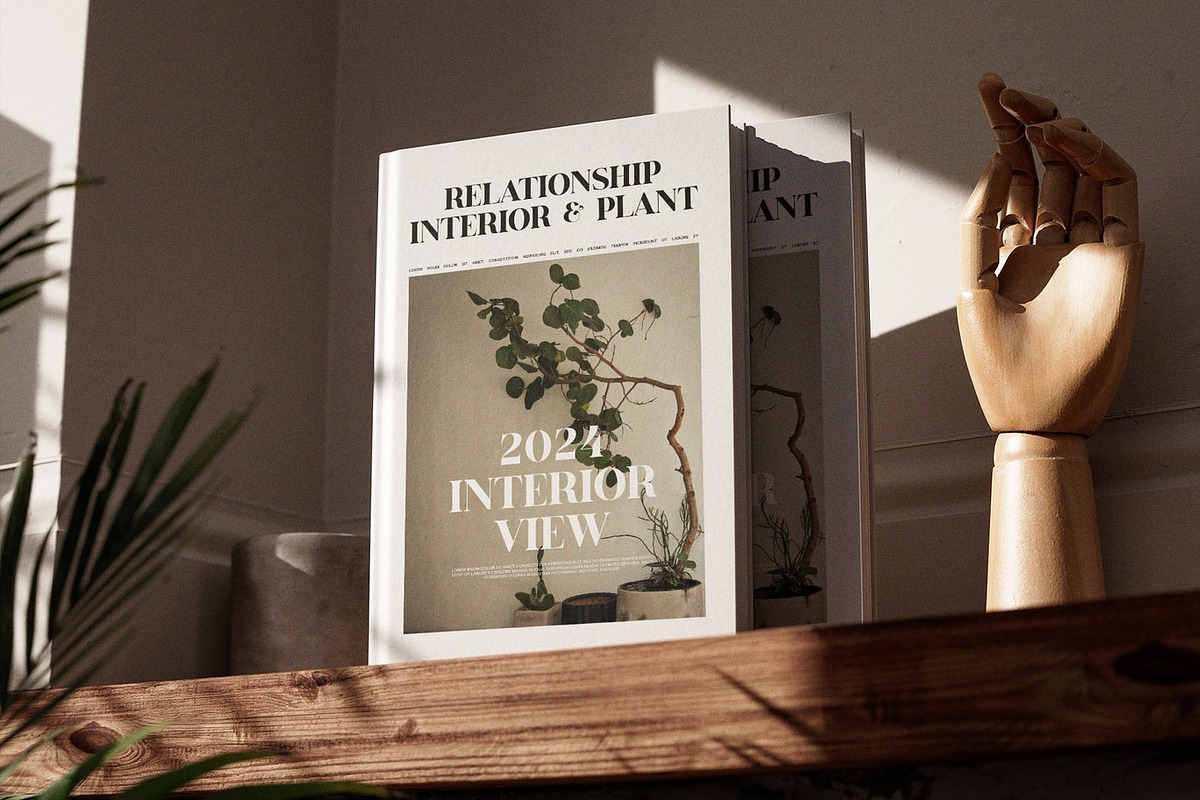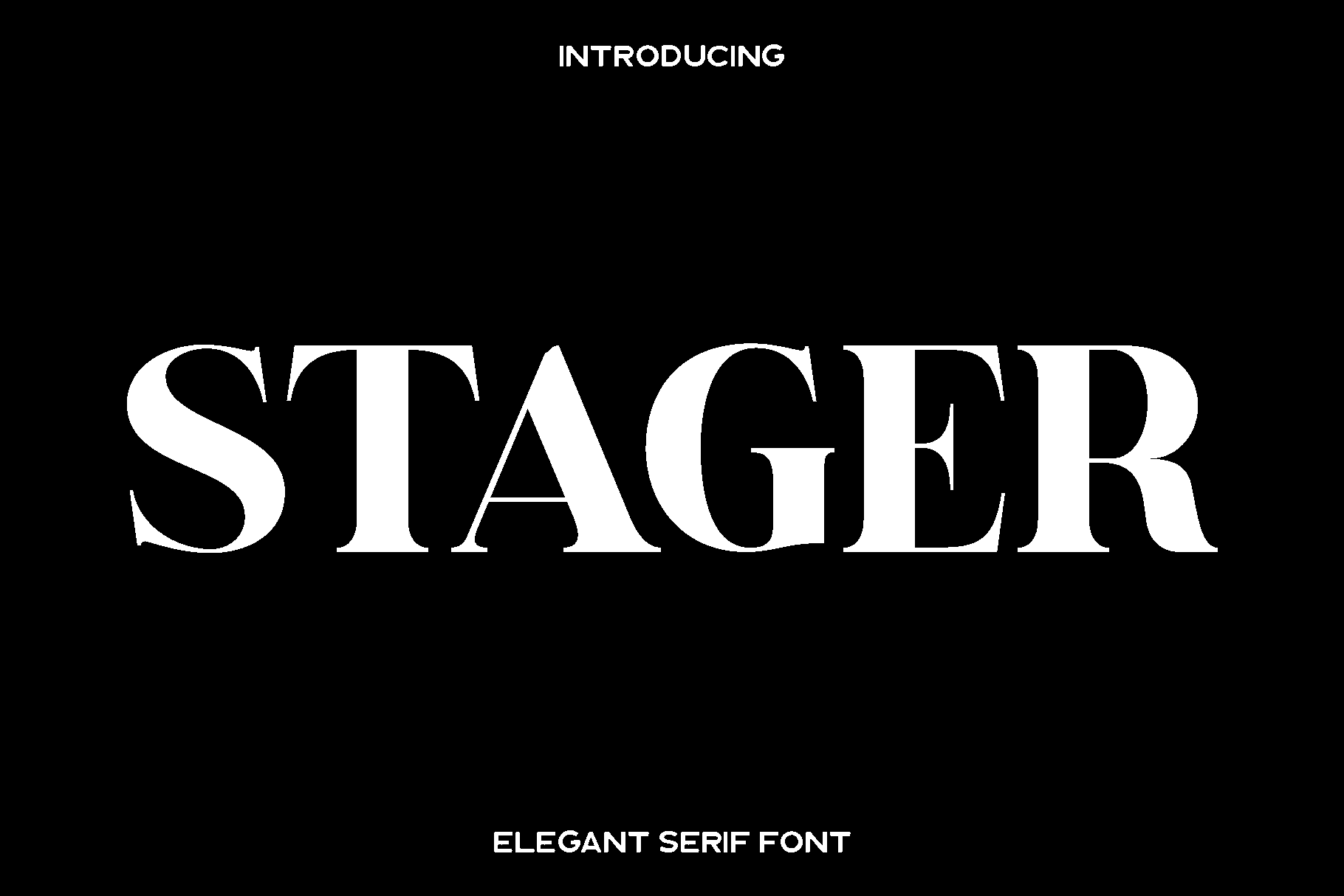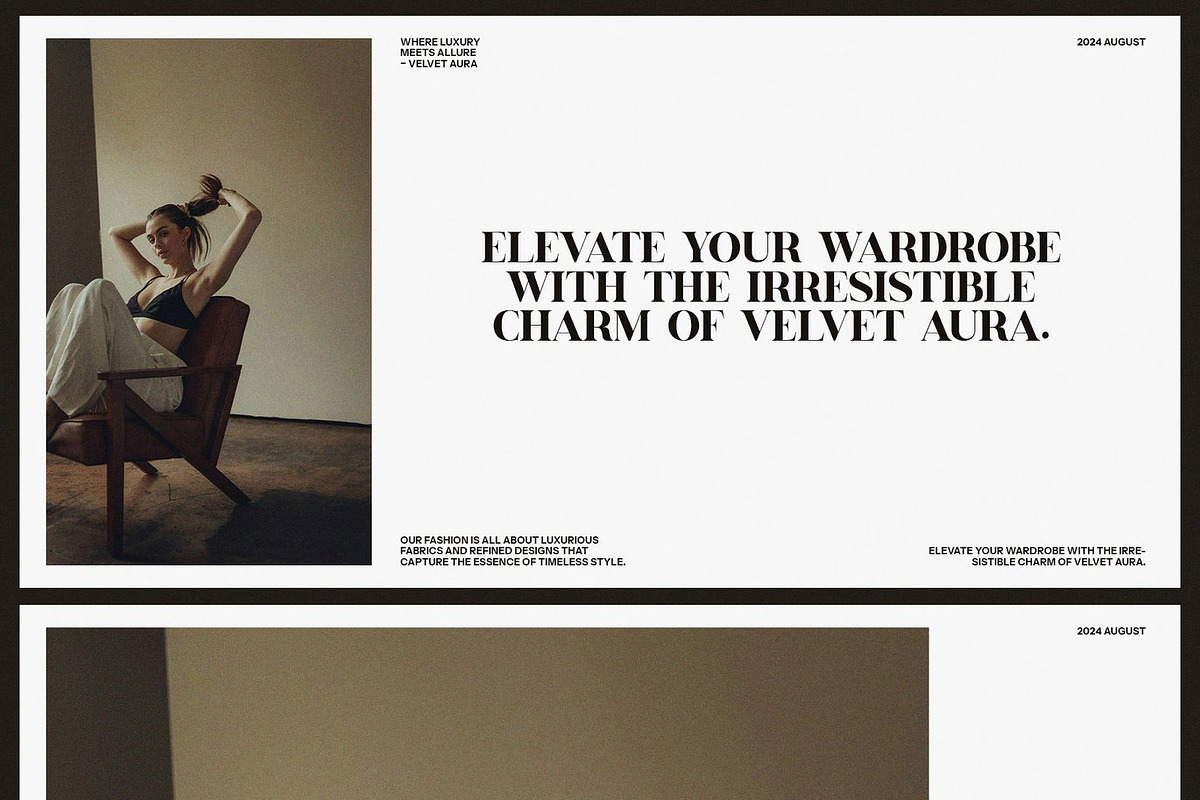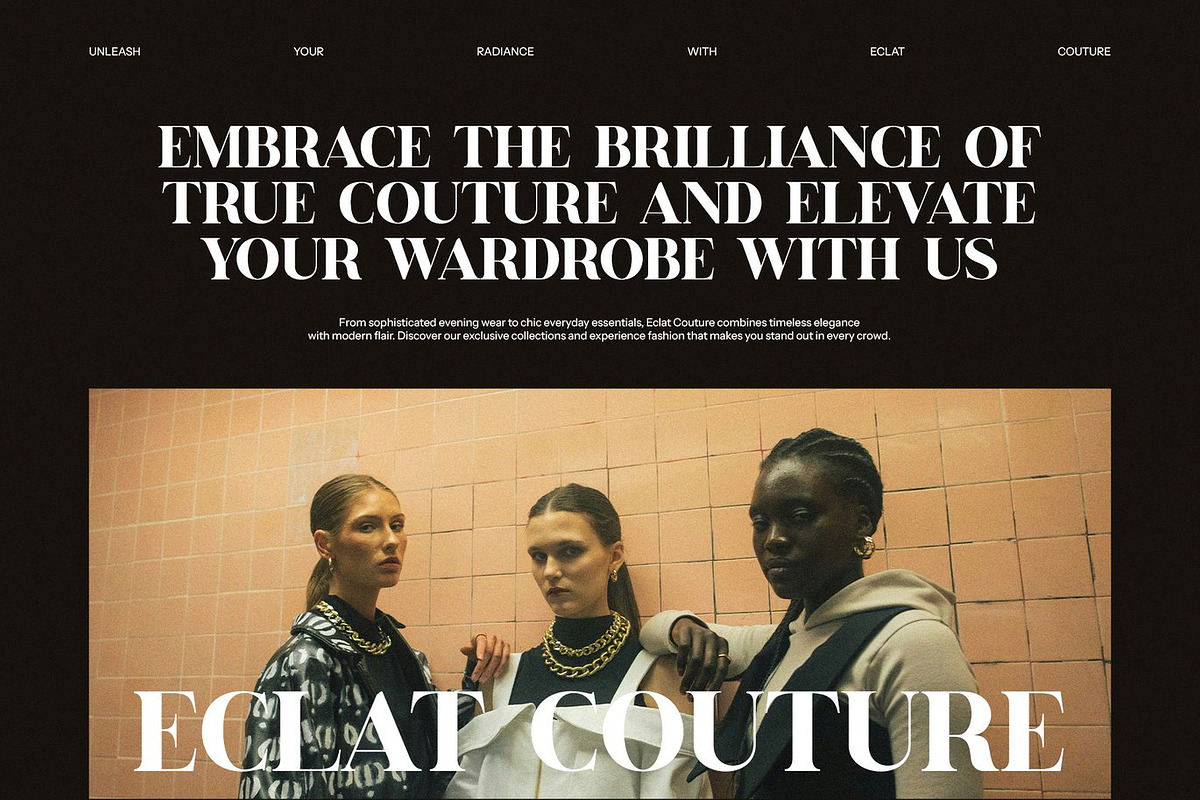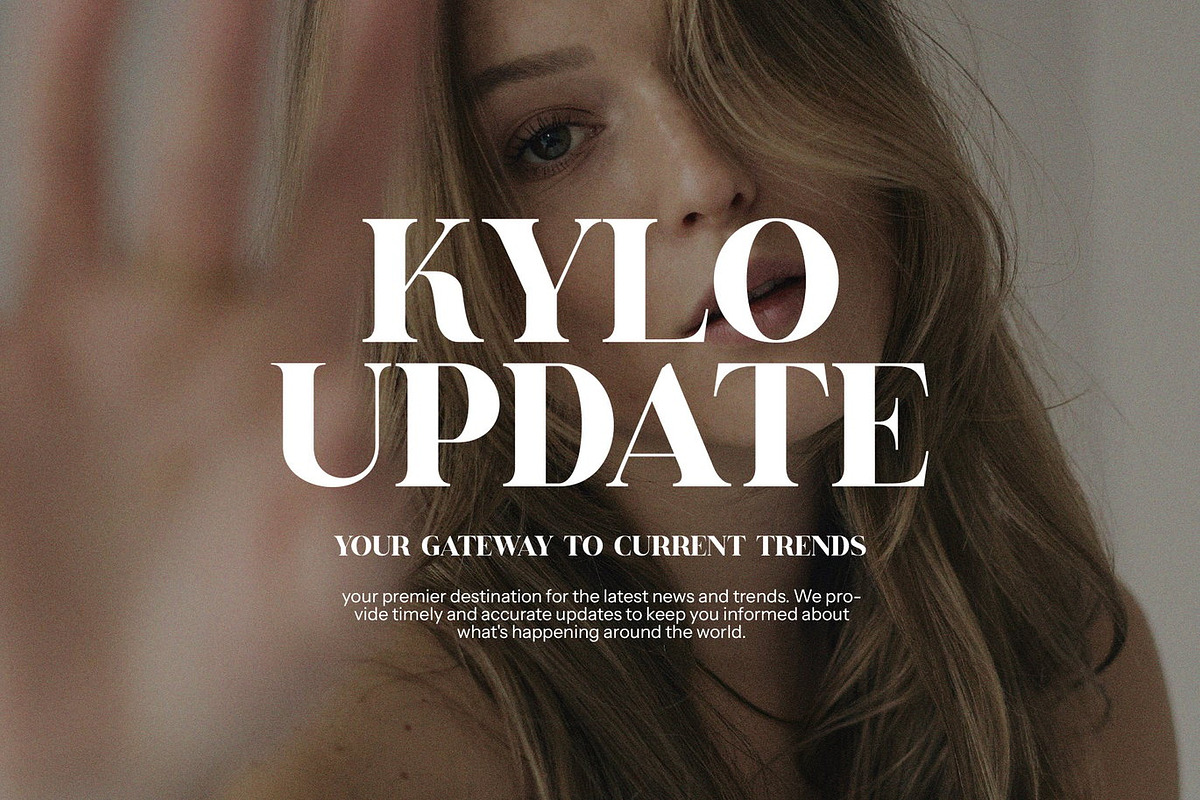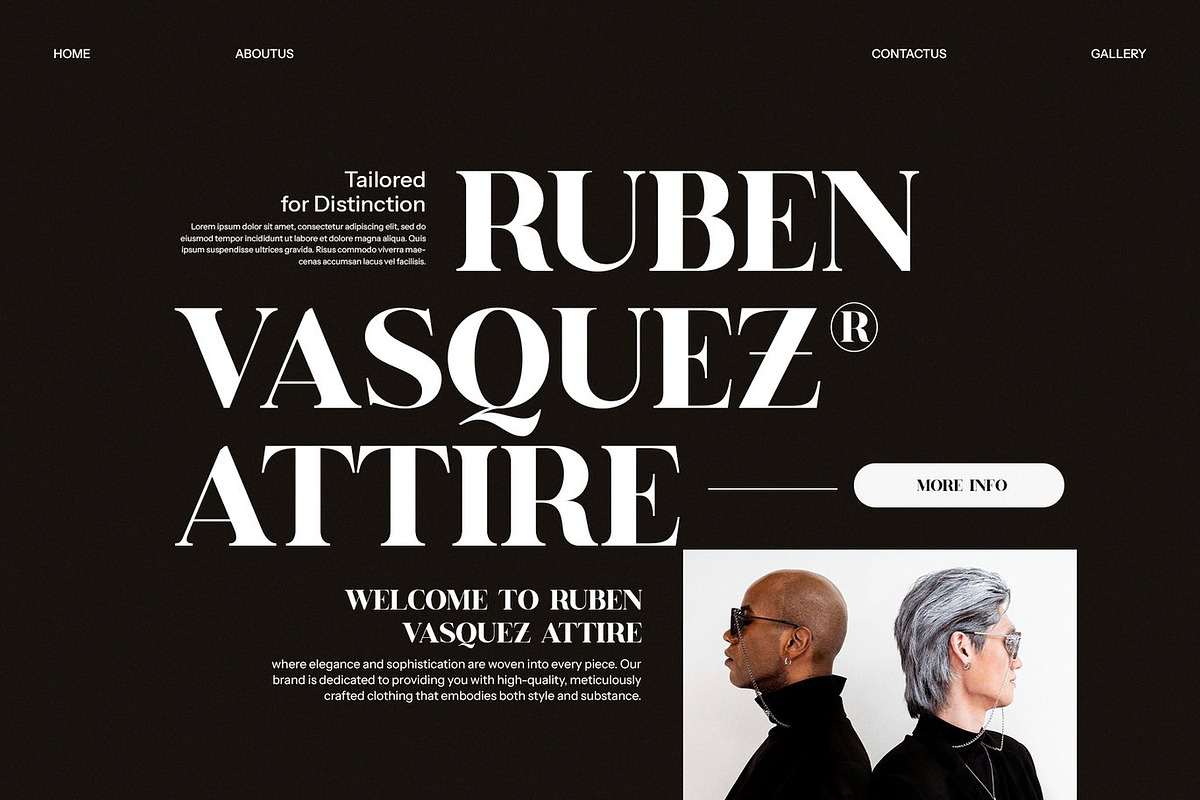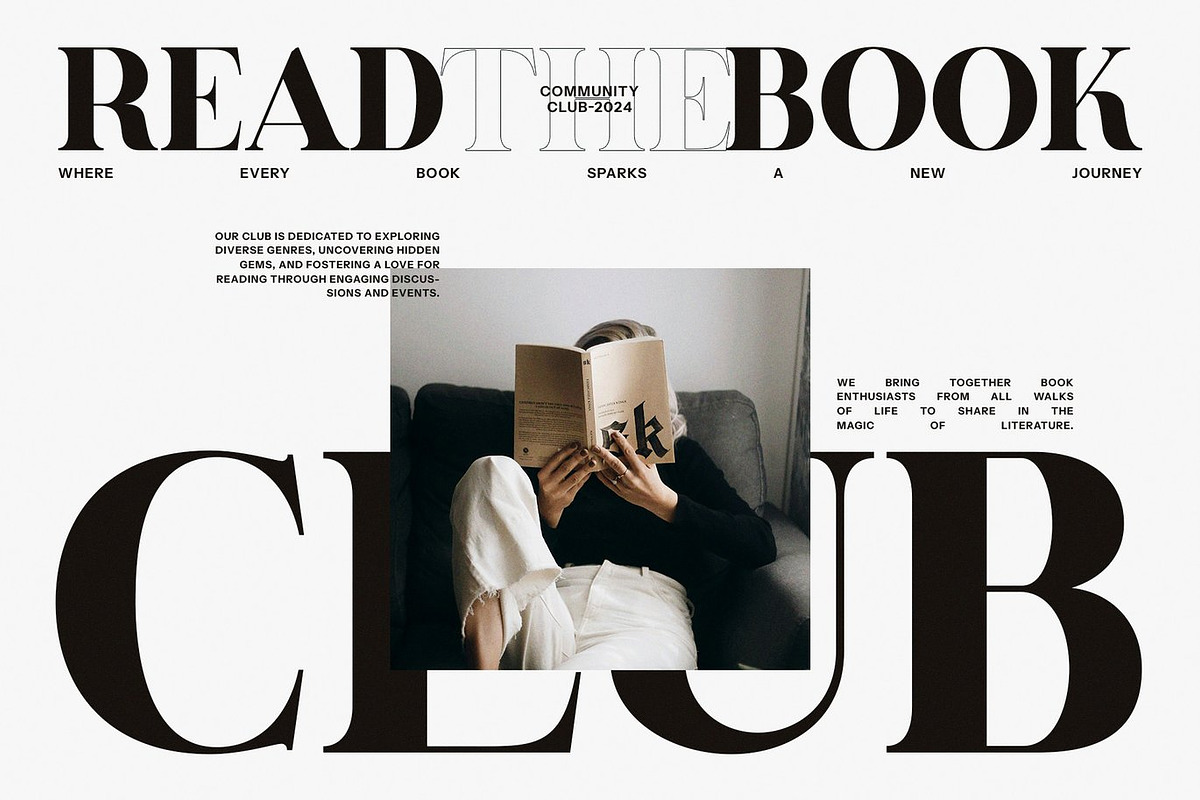
Stager - Elegant Serif Font
Stager is an elegant serif font crafted for designers who value sophistication, luxury, and timeless beauty in their work. Inspired by high end branding and classic editorial typography, Stager features refined curves, graceful transitions, and polished letterforms that elevate every design. Its classy aesthetic creates an immediate sense of quality, making Stager a perfect choice for premium and professional creative projects.
With its luxurious presence, Stager shines in branding, logo creation, product packaging, advertising, and upscale visual identities. Its smooth readability and stylish structure also make it ideal for wedding invitations, photography watermarks, social media graphics, stationery, and editorial layouts. Whether used for bold headlines or delicate details, Stager maintains clarity while adding unmistakable elegance to your work.
Stager blends modern finesse with timeless charm, giving your designs a sophisticated character that stands out across both print and digital applications. Its well balanced proportions and versatile style ensure your projects look polished, professional, and visually captivating.